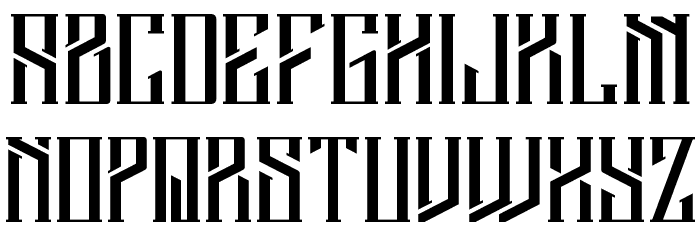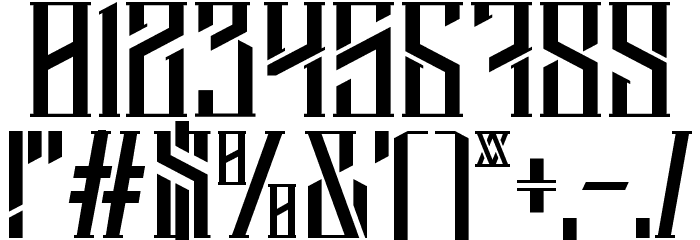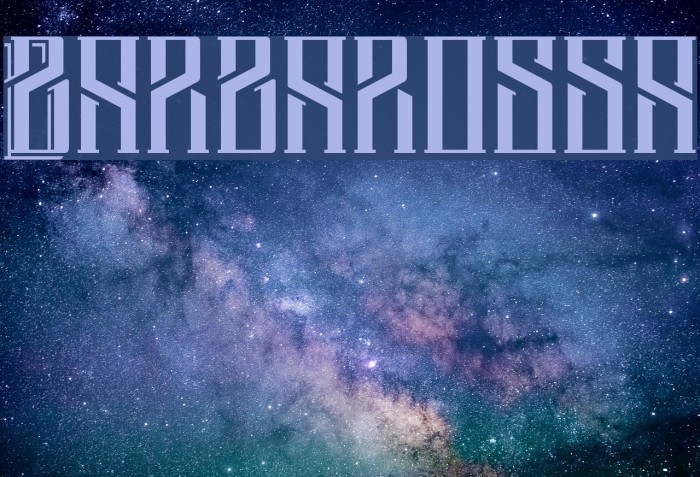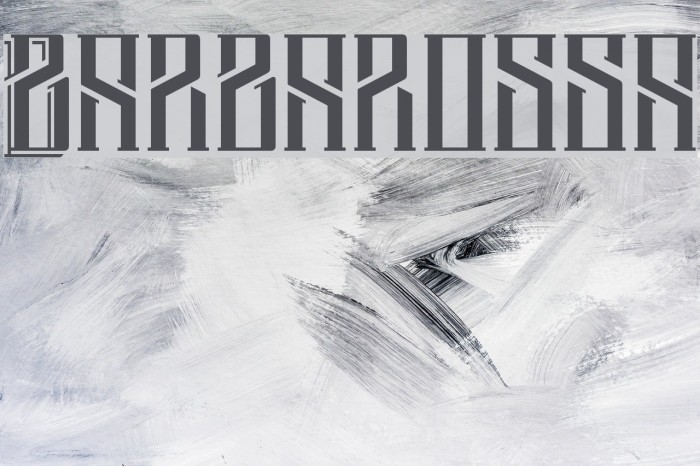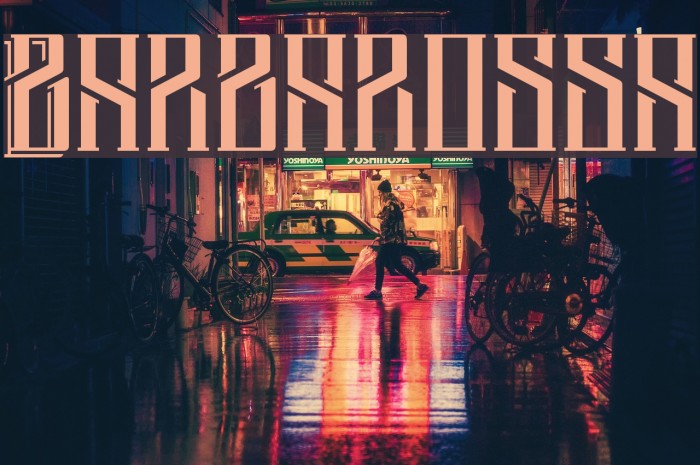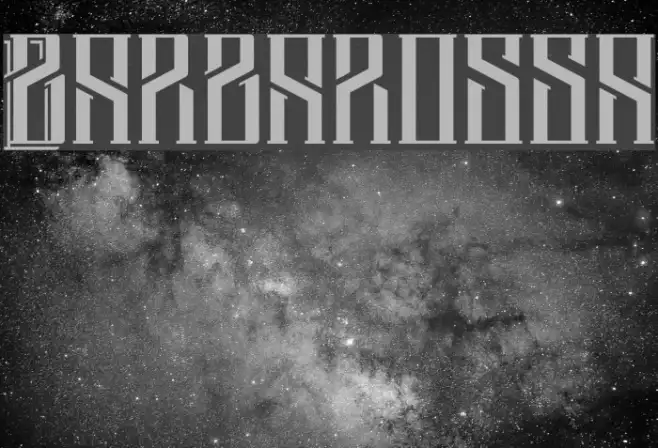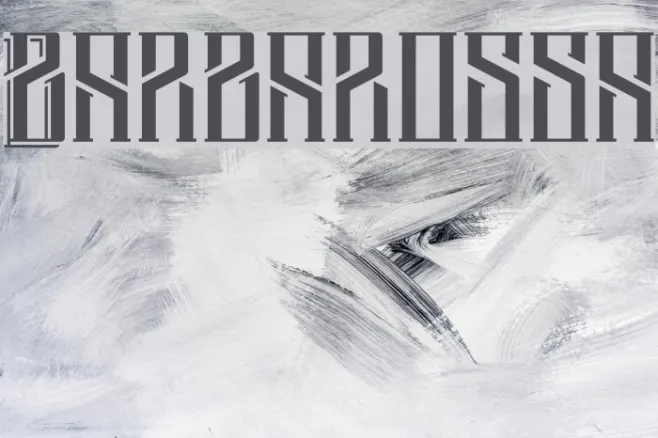
Barbarossa Font
This font features a bold and striking design with a strong geometric influence. The characters are constructed with sharp angles and a high level of contrast between thick and thin strokes, giving it a dynamic and aggressive appearance. The uppercase letters are particularly distinctive, with a sense of movement and energy. The overall style is reminiscent of Gothic or Blackletter fonts, yet it maintains a modern edge with its clean lines and structured form. The numbers and special characters follow the same design principles, ensuring consistency throughout the typeface.
A bold, geometric font with high contrast and a Gothic-inspired style.
- Proposed Projects: Ideal for projects that require a dramatic and eye-catching typeface, such as posters, album covers, branding for edgy or alternative brands, and video game titles.
- Category: Blackletter
- Character Spacing: Tight
- Overall Style: Modern Gothic